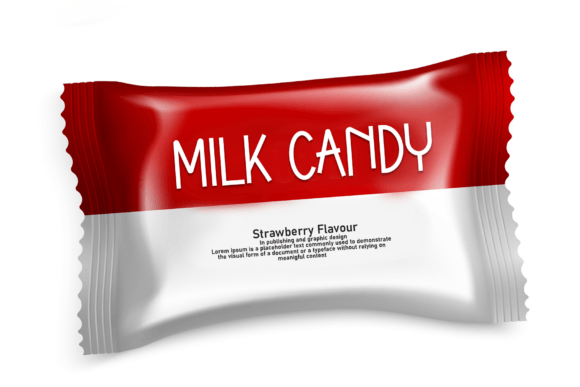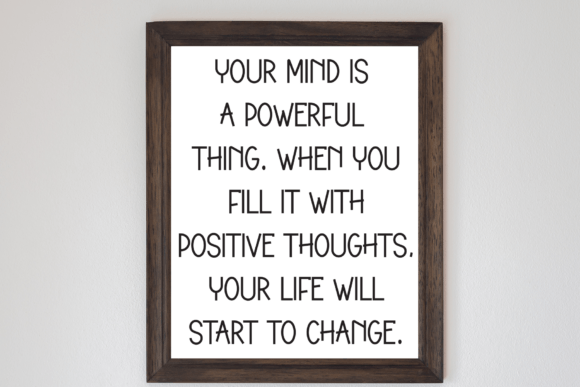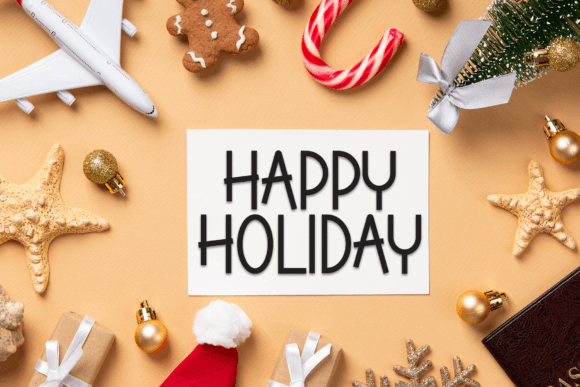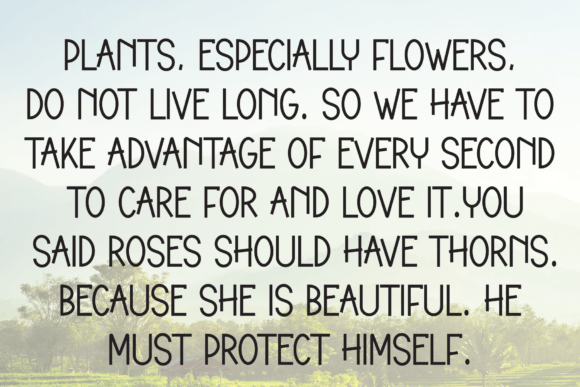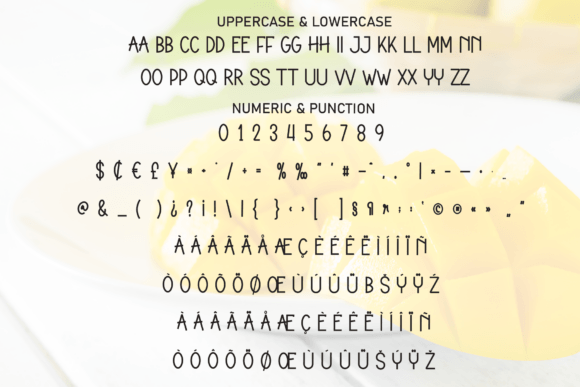
Introduction to Mango Sweet Font
Remember that moment when you were brainstorming ideas for a new design project and you stumbled upon the perfect font? It’s like a spark of creativity that sets off a chain reaction of excitement and inspiration. For designers, finding the right font can make all the difference between a good design and a great one. And that’s exactly what the Mango Sweet Font offers – a touch of sweetness that elevates any project from ordinary to extraordinary.
As a versatile and playful display font, Mango Sweet Font is perfect for adding a dash of whimsy to your designs. Whether you’re working on an invitation, a logo, or a social media graphic, this font is sure to bring a smile to your face and a pop of color to your design. Its friendly and vibrant style makes it an ideal choice for designers looking for a high-quality design resource that’s both fun and professional.
Key Features of Mango Sweet Font
- Unique, hand-drawn design with a mix of elegance and playfulness, ideal for creative projects.
- Comes in a single weight, making it easy to use across different design projects.
- Perfect for use in logos, branding materials, and other creative projects where a unique and eye-catching font is required.
Honest Review: Mango Sweet Font
I recently had the chance to work with the Mango Sweet Font and I must say, it’s a wonderful addition to any design resource collection. This font is perfect for creative projects that require a touch of sweetness and playfulness.
- ✨ High quality font with clear and readable characters
- ✨ Supports a wide range of languages, making it a great option for international design projects
- ⚠️ Limited font weight options, which may not be suitable for all design projects
- ⚠️ Not ideal for formal or corporate design projects, as it may come across as too playful
Overall, I’m impressed with the Mango Sweet Font and would recommend it to designers looking for a fun and creative font for their next project. Just be sure to use it in the right context to get the most out of it!
Tips for Getting the Most Out of Mango Sweet Font
To get the most out of Mango Sweet Font, experiment with different font sizes, colors, and styles. Use it in combination with other fonts to create unique and eye-catching designs. Don’t be afraid to try out new things and push the boundaries of what’s possible with this high-quality font.
Mango Sweet Font is perfect for a variety of creative projects, including wedding invitations, business cards, social media graphics, and more. Its high-quality features and transparent background make it an ideal choice for designers who want to create stunning and professional-looking designs.